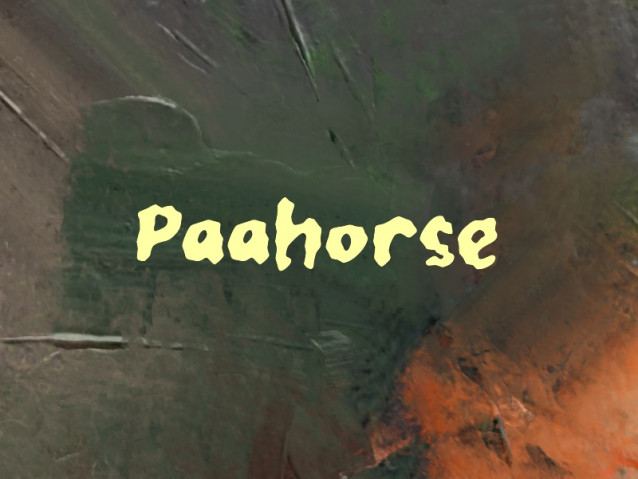
Paahorse Font is a simple and modern display font suitable for quotes, logos, headings, titles, and many more. Use it on any of your creative projects, and your designs will become outstanding!
Paahorse Font
| Classification: | Display Fonts, Modern Fonts |